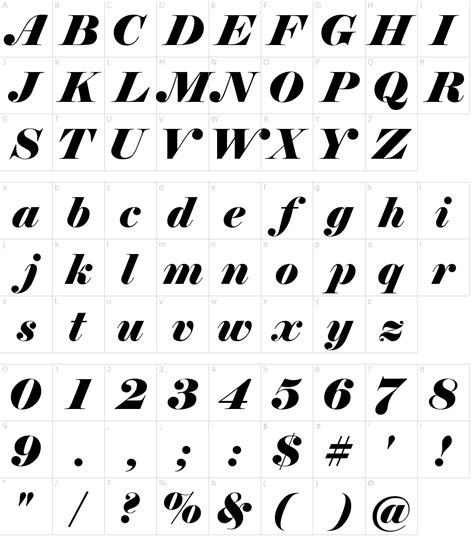
Italic Fonts For 2021
What Are Italic Fonts?
Italic fonts are a type of font that slants slightly to the right. They are often used to emphasize a certain part of text or to add emphasis to a headline. It's a great way to make certain words stand out, and they are often used in formal writing. Italic fonts are also used in books, magazines, and newspapers. The most popular type of italic font is Times New Roman, but there are many other types available.
What Makes Italic Fonts Special?
Italic fonts are special for a few reasons. First, they are often used to emphasize certain words or phrases. For example, if you have a headline that you want to stand out, you can do so by using italic fonts. This is a great way to draw the reader's eye to the important parts of your text.
Second, italic fonts create a sense of movement and can be used to create a more dynamic look. If you have a paragraph that you want to make look like it's flowing, you can use italic fonts to do this. This can also be used to create a sense of urgency and make the reader want to continue reading.
Finally, italic fonts can create an elegant and sophisticated look. When used properly, they can make any piece of text look more professional and well-crafted. This is especially true when used with larger font sizes.
How to Use Italic Fonts
Once you've found the perfect italic font, you'll need to know how to use it properly. The key is to use it in moderation. Too much italic font can be distracting and make your text look cluttered. It's best to use italic fonts sparingly, but make sure to use them in the right places.
If you're using italic fonts for headlines, make sure to use them in larger font sizes. This will help to emphasize the words and make them stand out. When using italic fonts in body text, it's best to keep the font size small. This will ensure that the italic font doesn't take away from the words or phrases that you're emphasizing.
Italic fonts can be a great way to add emphasis to certain words or phrases. They can also be used to create a more dynamic look and to make any piece of text look more elegant and sophisticated. When used properly, they can really make your text stand out. Just make sure to use them in moderation and to use them in the right places.